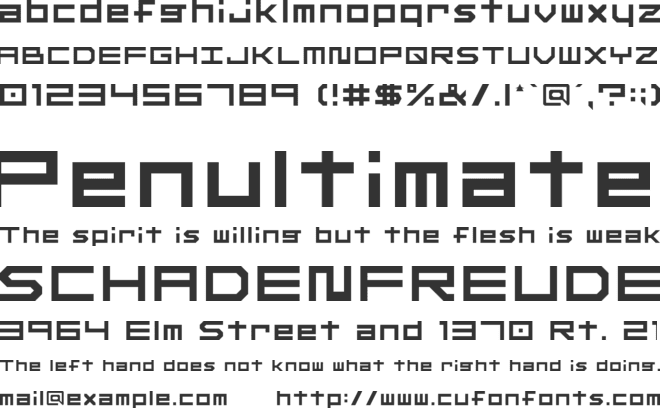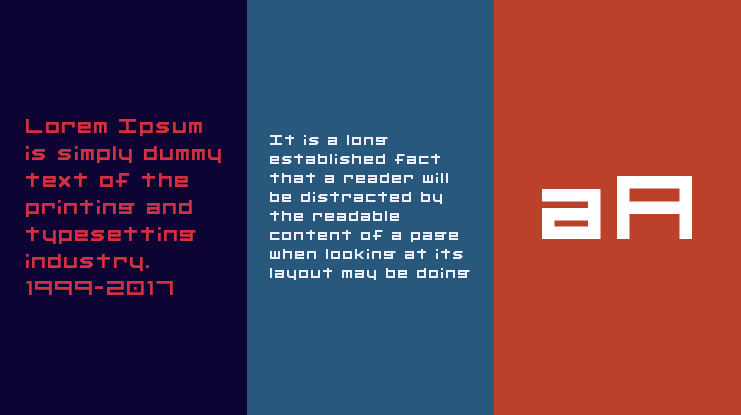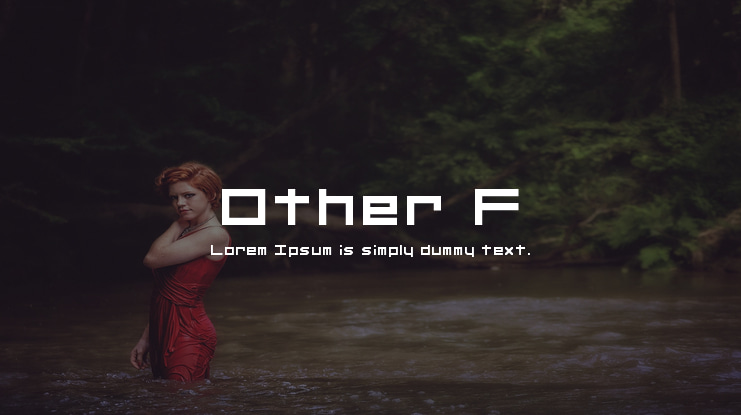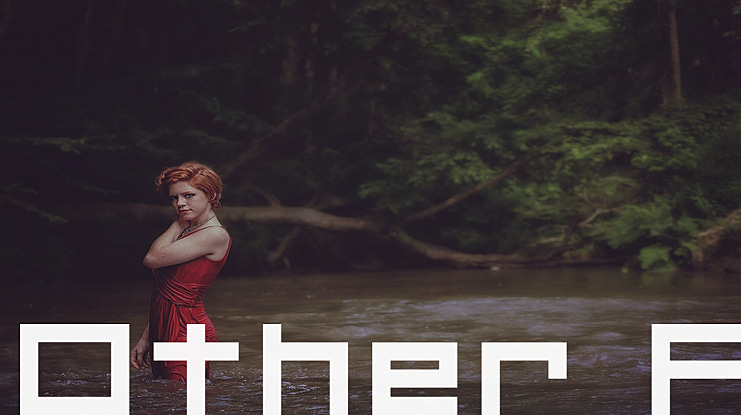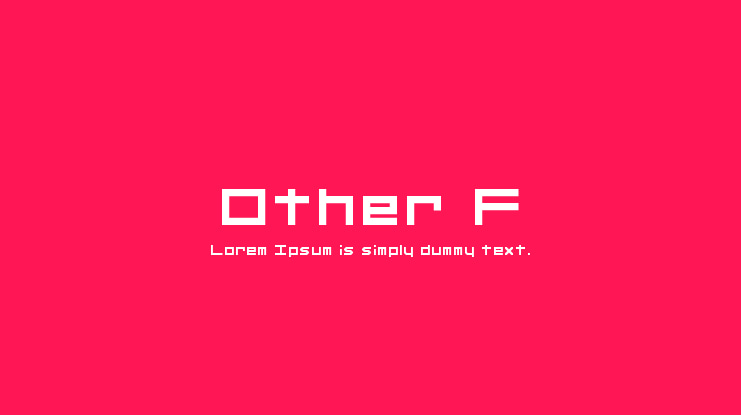
Other F Font
Made entirely using Fontstruct, this font is inspired by several Science Fiction scenarios that is rarely used in other media.
So I decided to recreate the fonts by combining the shapes and design into something different but retaining the way the glyph shapes goes.
It includes over 400 characters and more will be updated someday...